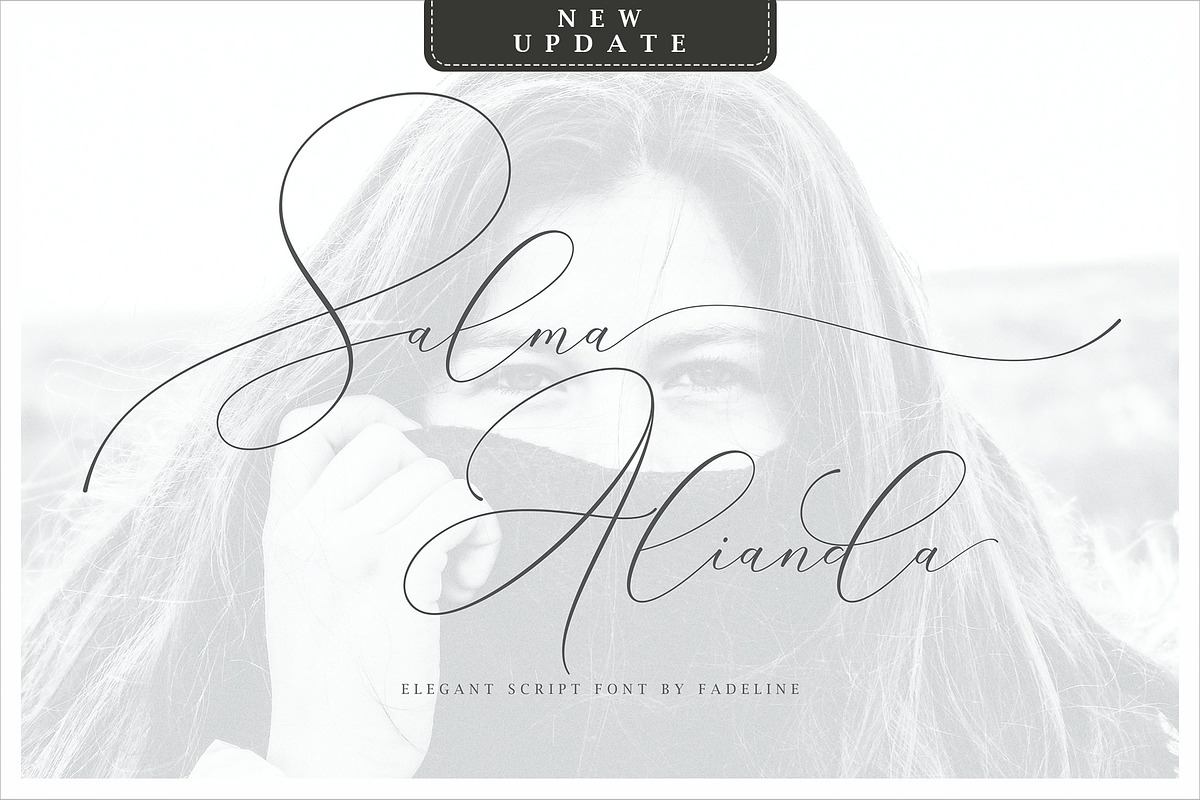
Salma Alianda is an elegant script font designed by Juni Fadil Putra and published by FadeLine Studio. This modern typeface features a thin, italic style meticulously crafted to deliver a neat and sophisticated appearance. With over 653 glyphs, including ligatures and stylistic alternates, it offers extensive versatility for various design projects.
Extensive Glyph Set: Includes a complete set of uppercase and lowercase letters, punctuation, numbers, and multilingual support, allowing for diverse typographic applications.
Versatile Application: Ideal for logos, branding projects, homeware designs, product packaging, mugs, quotes, posters, shopping bags, t-shirts, book covers, name cards, invitation cards, greeting cards, and more.
Incorporating Salma Alianda into your design projects can add a touch of elegance and modernity, enhancing the overall visual appeal.